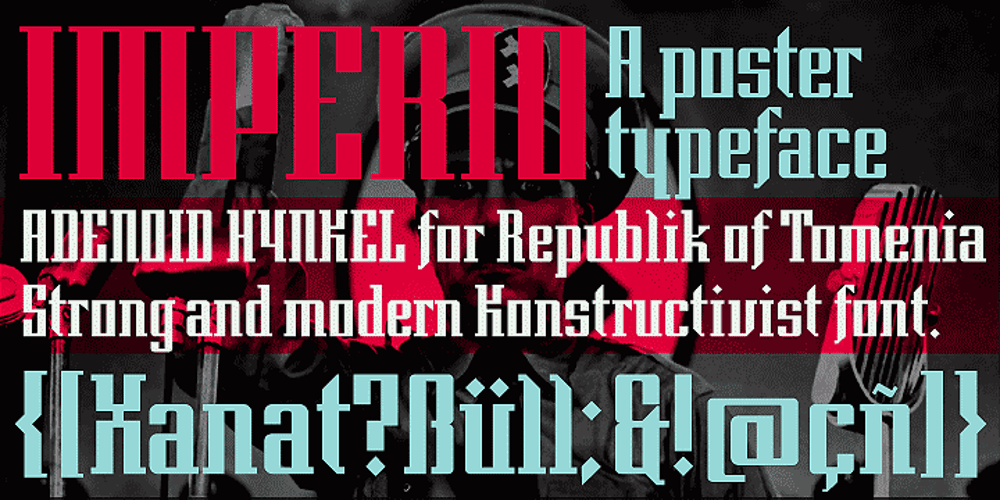
Imperio
Imperio font
Imperio Font Family was designed by Juan Ignacio Siwak and published by Juan I. Siwak. Imperio contains 8 styles and family package options. Imperio is a font inspired by old posters, especially those related to constructivism and futurism. It reflects both the rationalism of Bauhaus as a propagandist and revolutionary spirit of an era. On the other hand it is not nostalgic, but instead looks for its own way to get diagonals where there was rigidity. The poster itself is the language of graphic design, and geometry is its ally. This font aims for that goal. It has two variants that derive from its source. Imperio Giga Black attempts to be a negative typography, starting with the black and then searching for small windows in which they begin to uncover the morph. This is an extreme and modern font. Imperio West is a metamorphosis of the original one, with decorative details which transform it into a typeface of wood and saloon font. In all cases we recommend its use in large sizes (up to 20pt) and main titles. Imperio UltraBlack can work in smaller sizes than Imperio Regular.